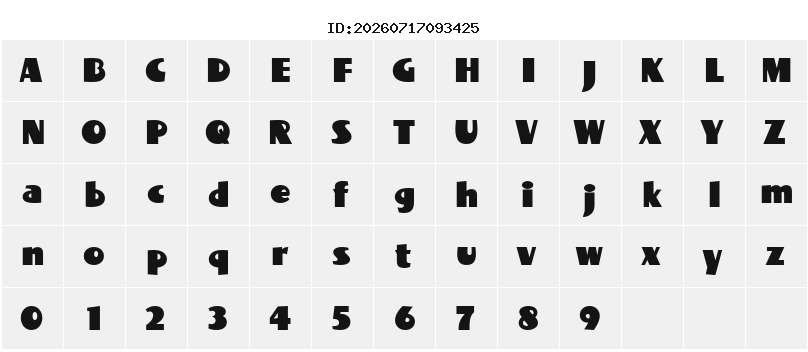
• Font Name: BottleKaps S Condensed
• Full Font Name: BottleKaps S Condensed
About BottleKaps S Condensed.ttf
BottleKaps S Condensed.ttf is a modern, elegant sans-serif font designed for ultimate readability and visual harmony. Perfect for branding, headlines, web design, and print materials.